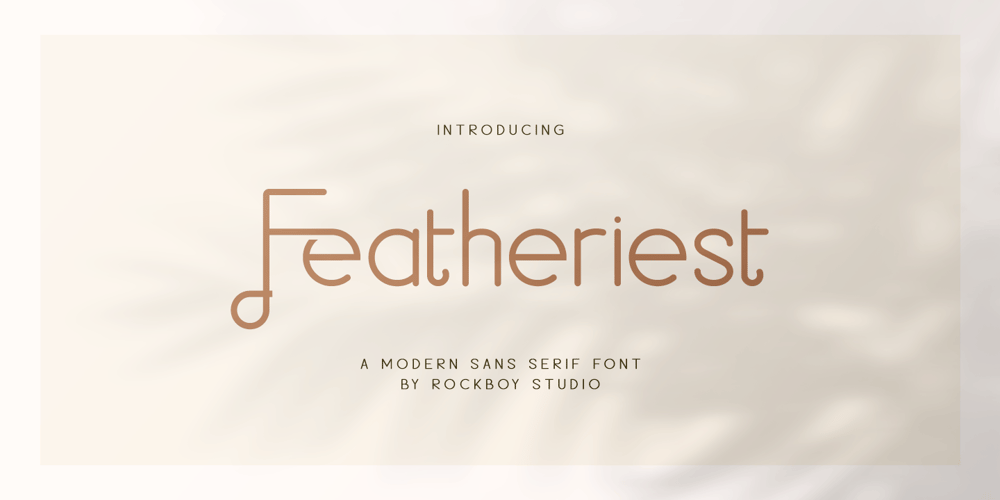
Featheriest Font Family was designed by Hayinah and published by Rockboys Studio. Featheriest contains 1 styles and family package options. Featheriest is a modern and elegant sans serif font that stands out for its sleek and minimalistic design. It features clean lines and subtle geometric shapes, giving it a contemporary yet refined appearance. The font’s light, airy quality is enhanced by its delicately rounded edges and spacious letterforms, which contribute to its elegant and approachable look. Ideal for high-end branding, sophisticated editorial work, and minimalist design projects, Featheriest strikes a perfect balance between modern simplicity and timeless elegance. Its versatile nature ensures it performs beautifully in both print and digital media, offering a touch of grace to any design.